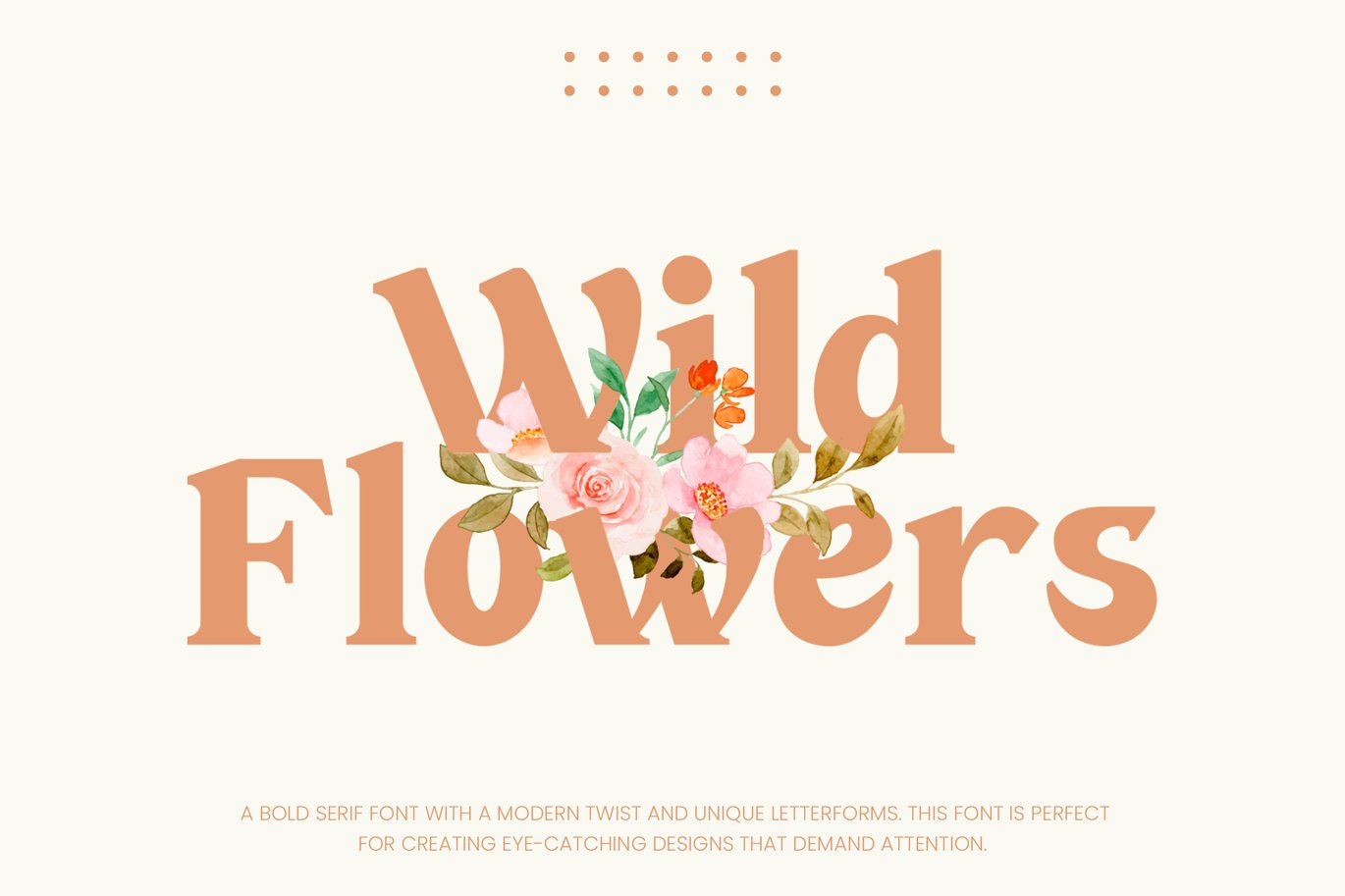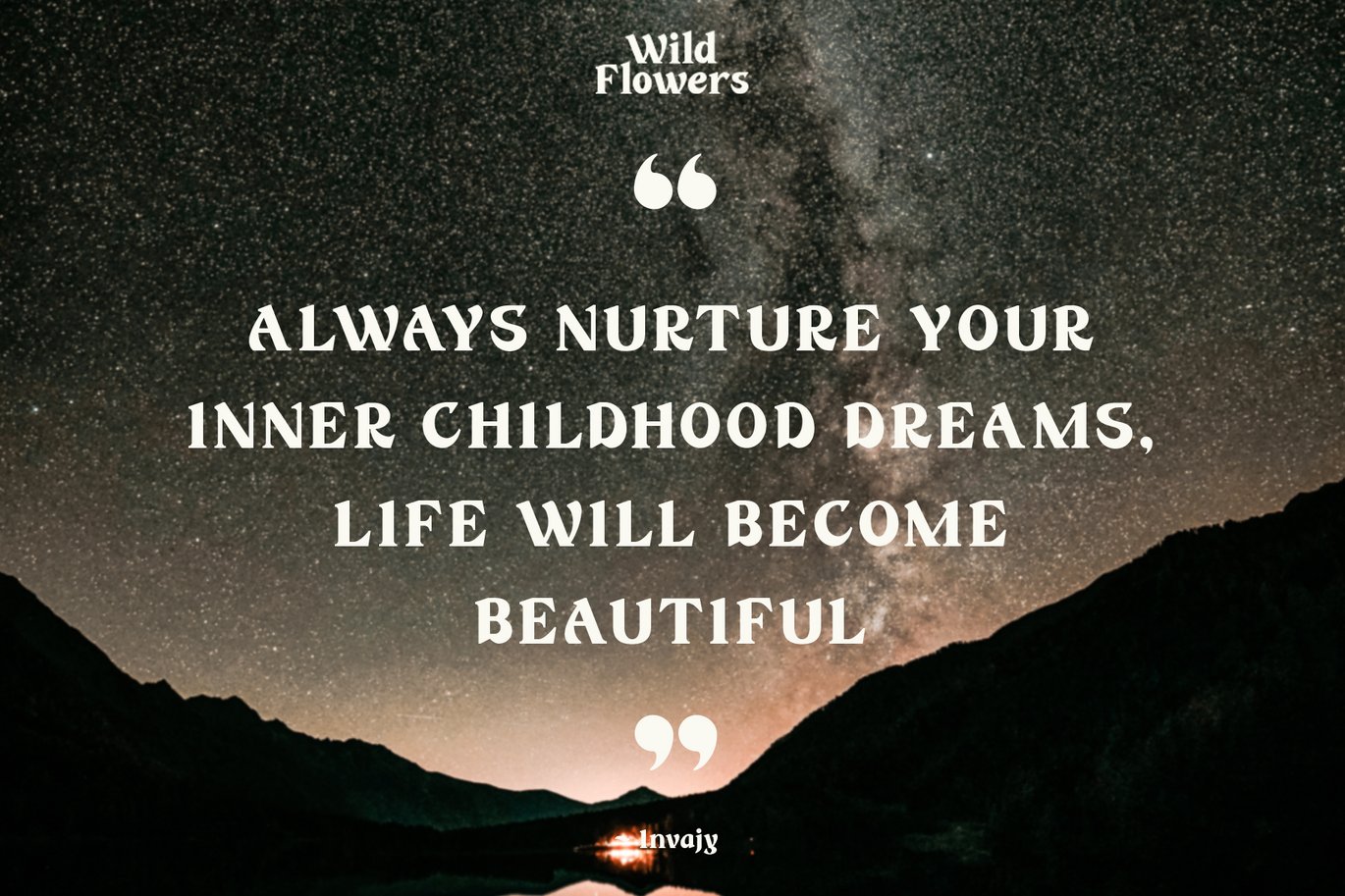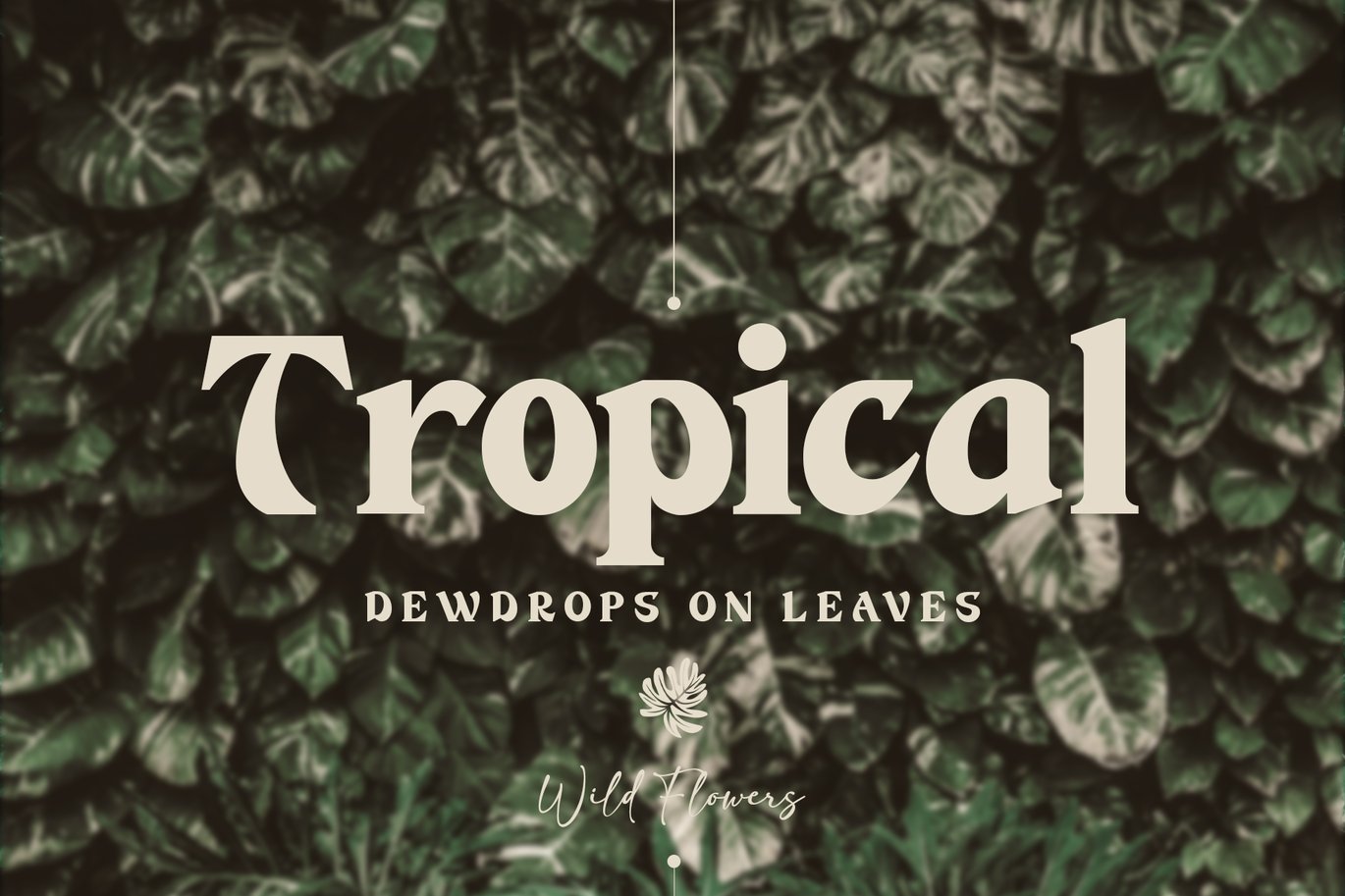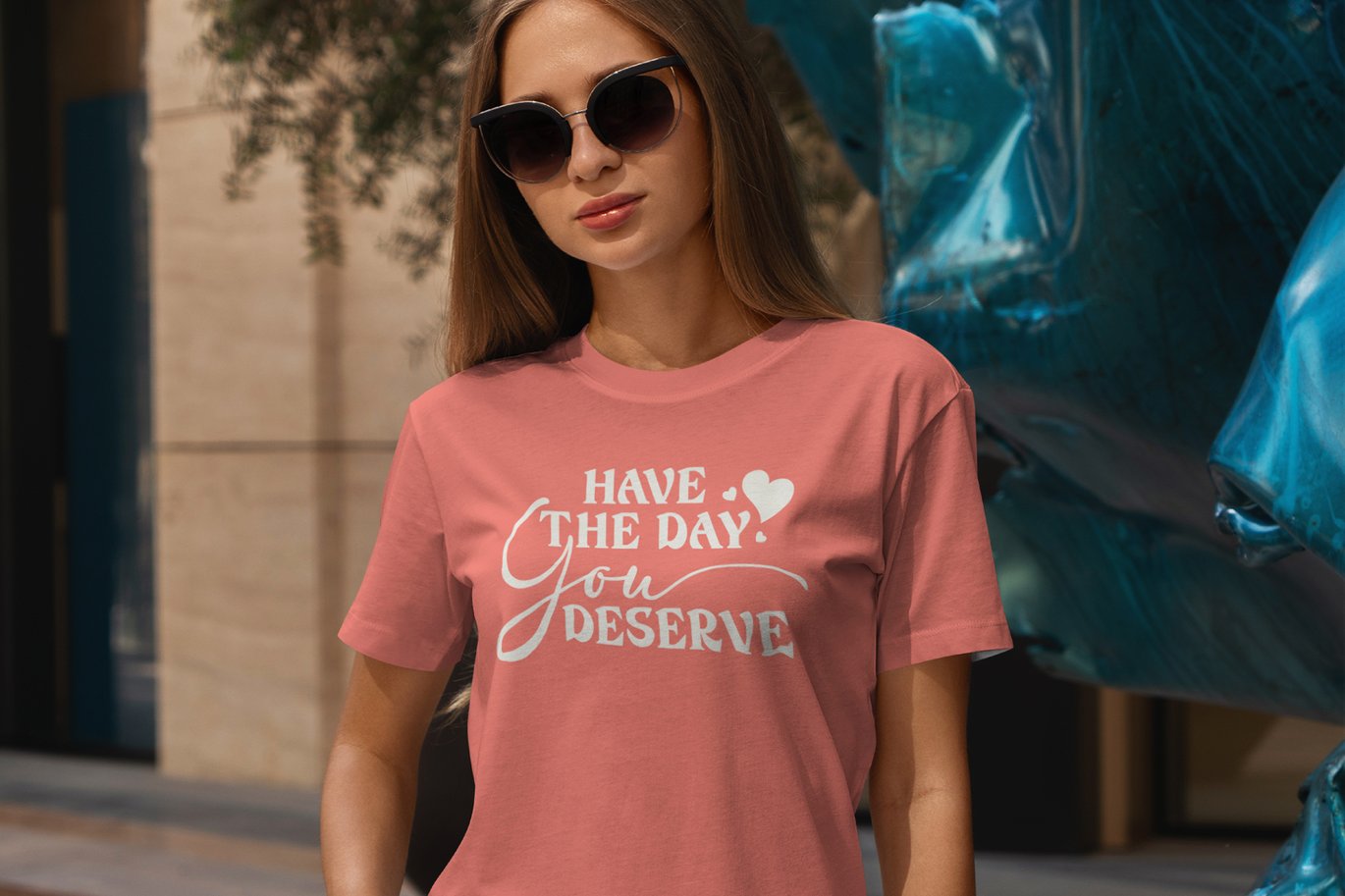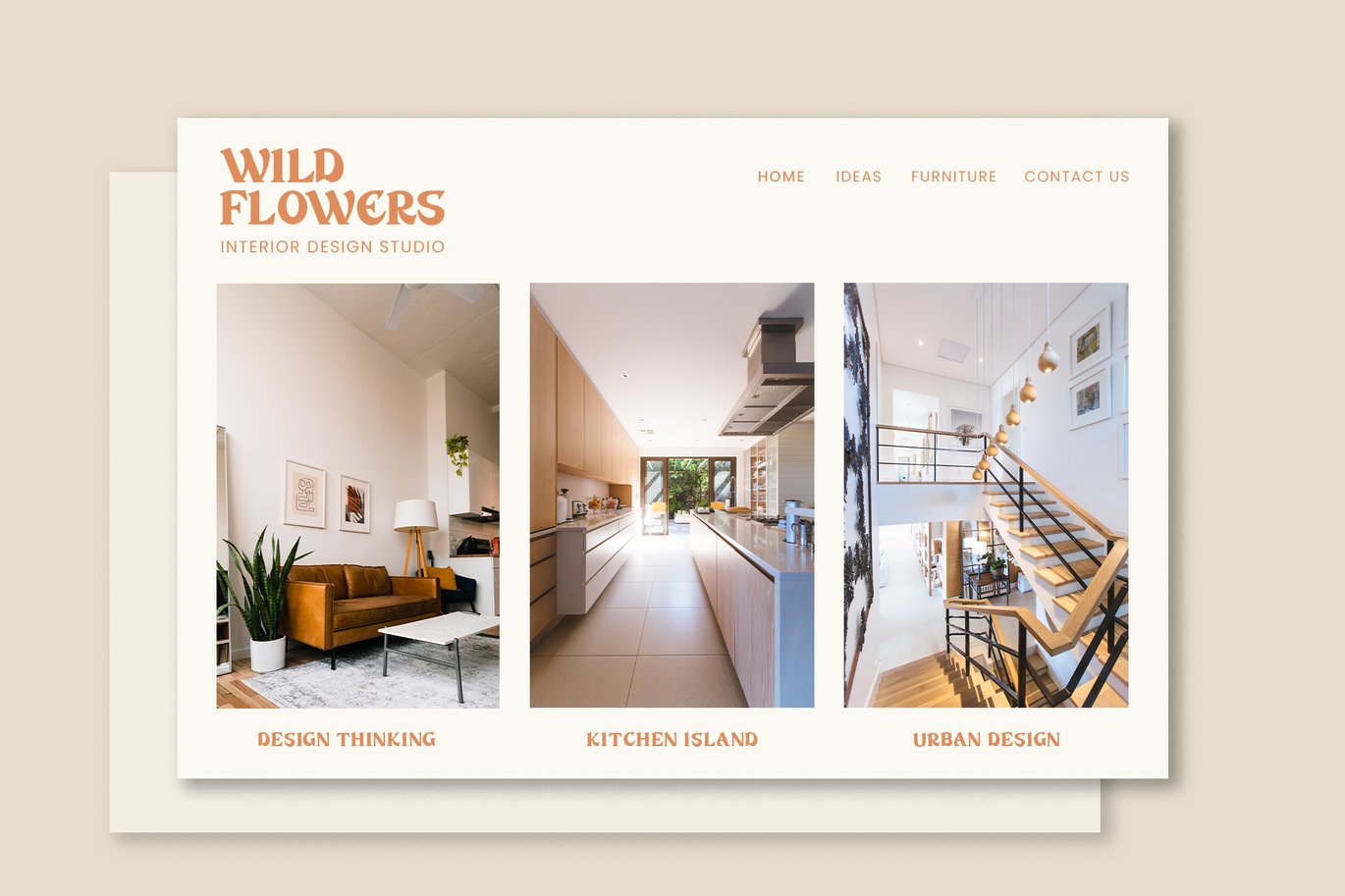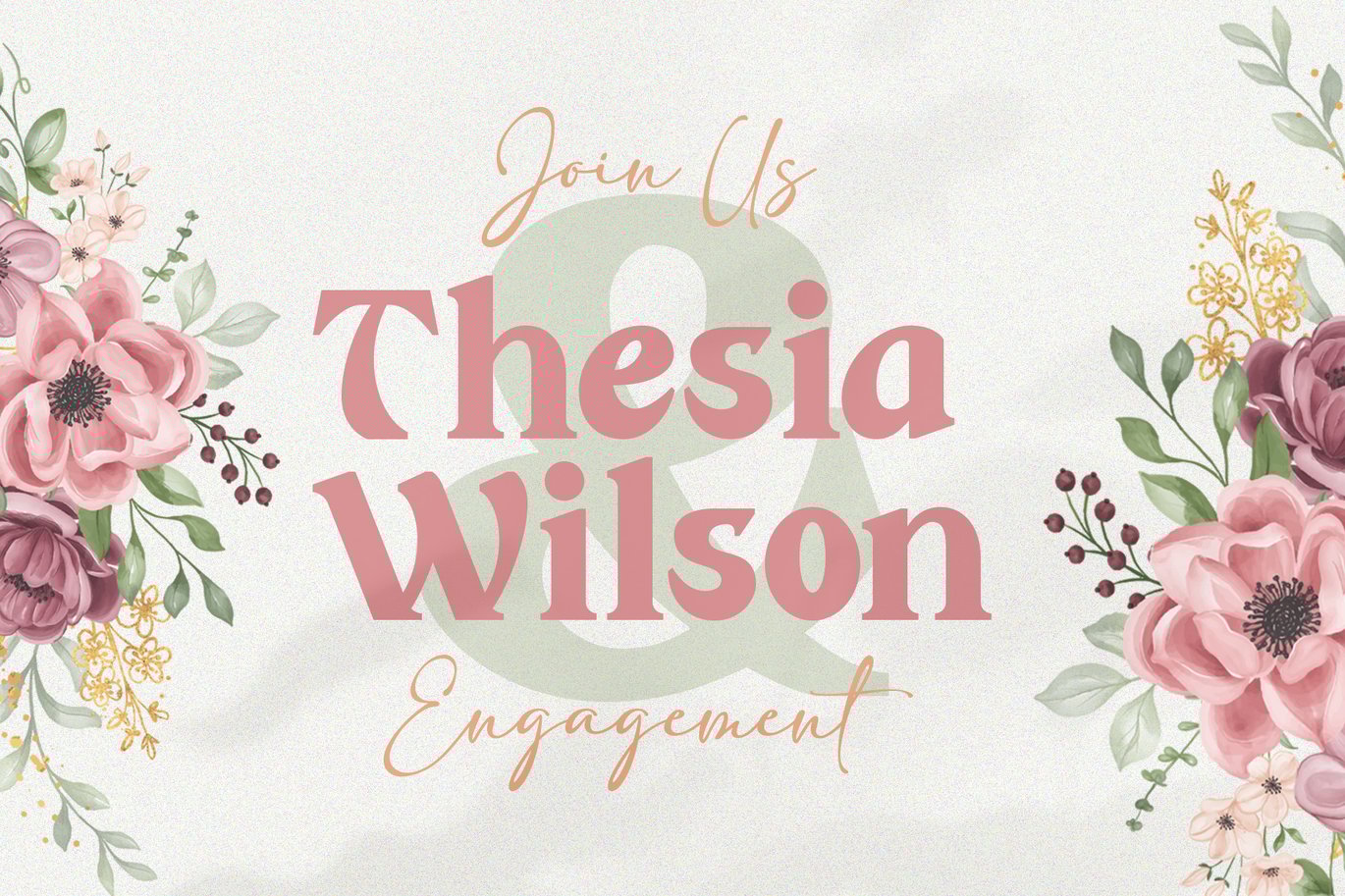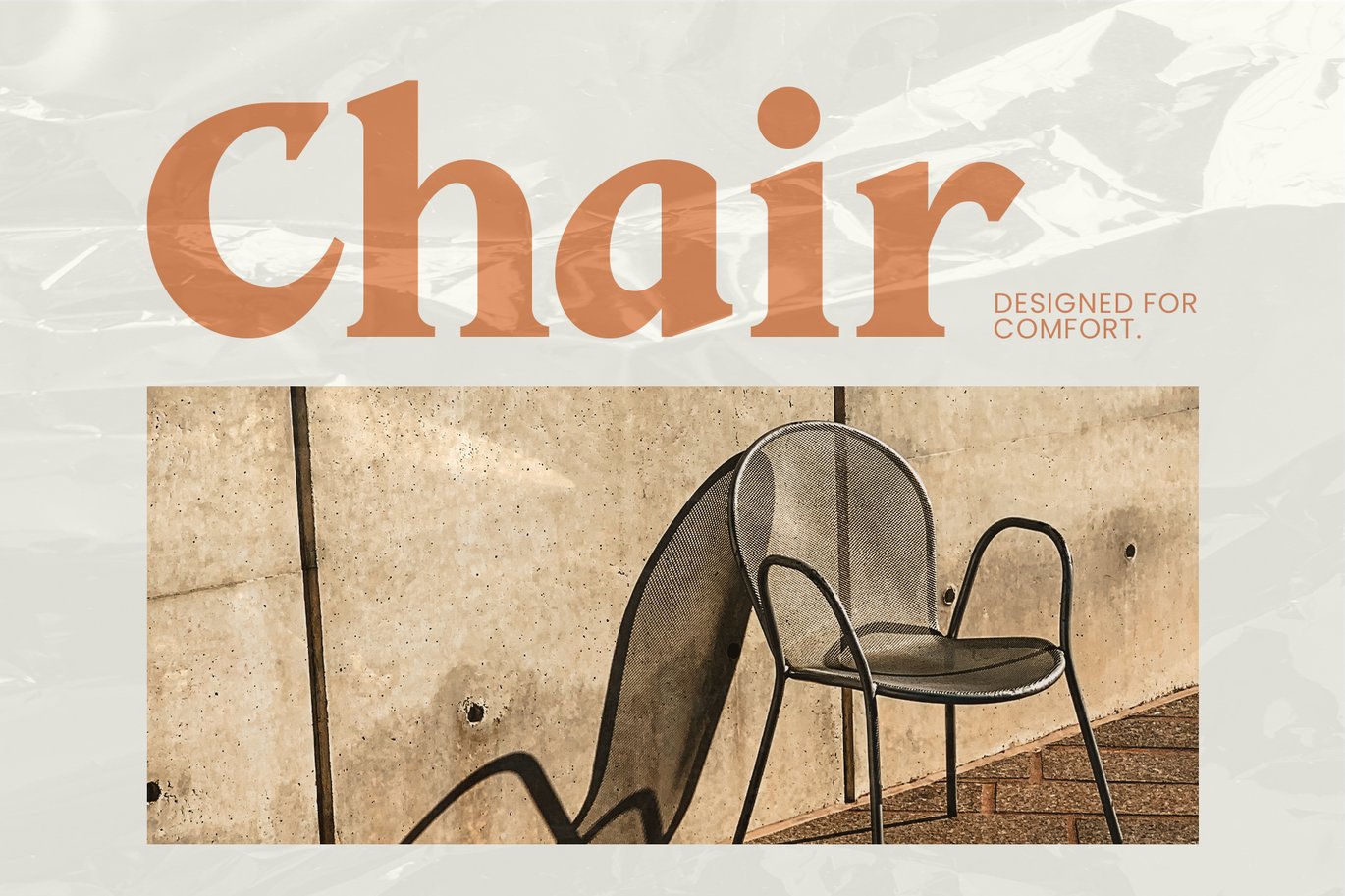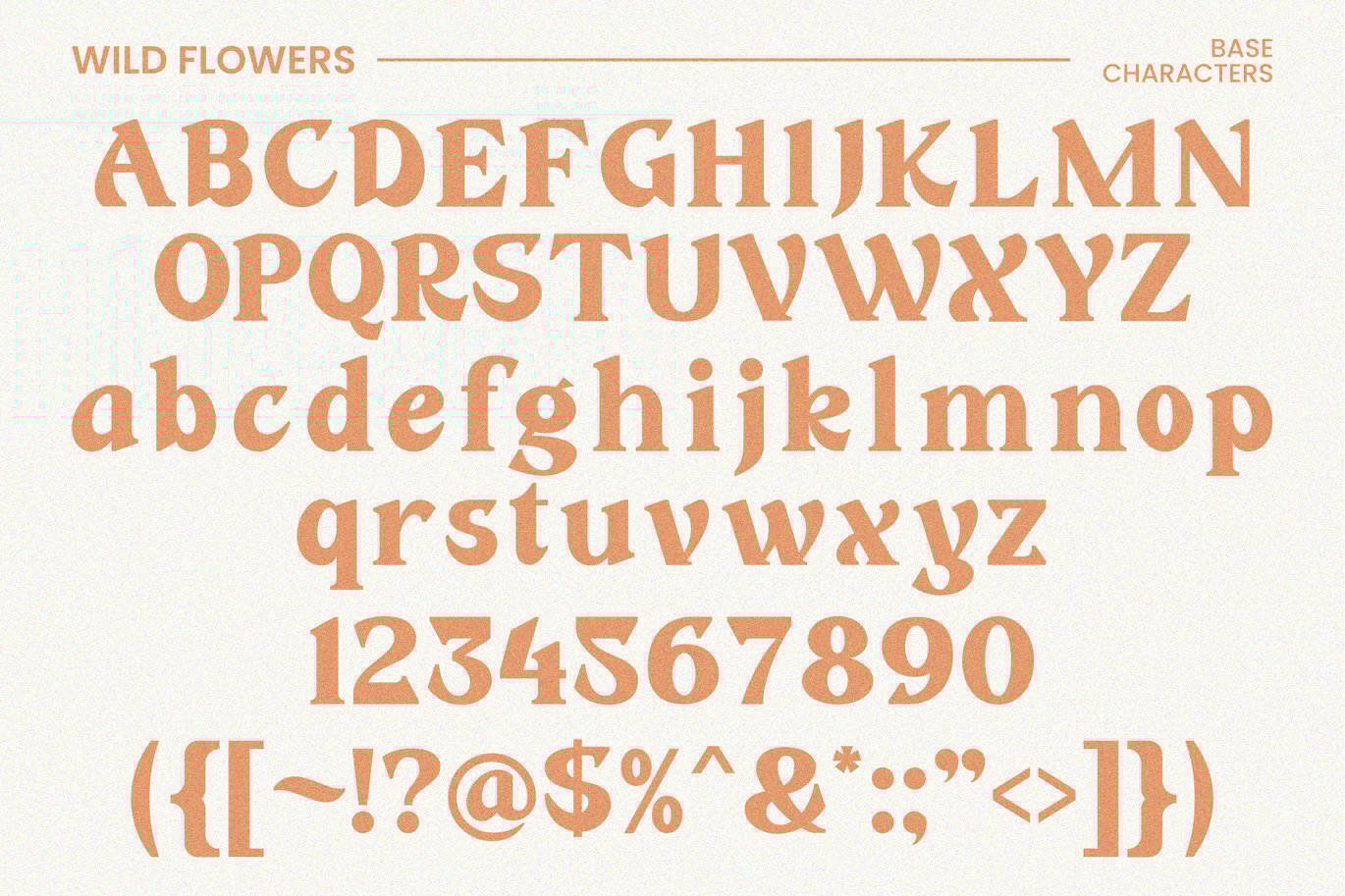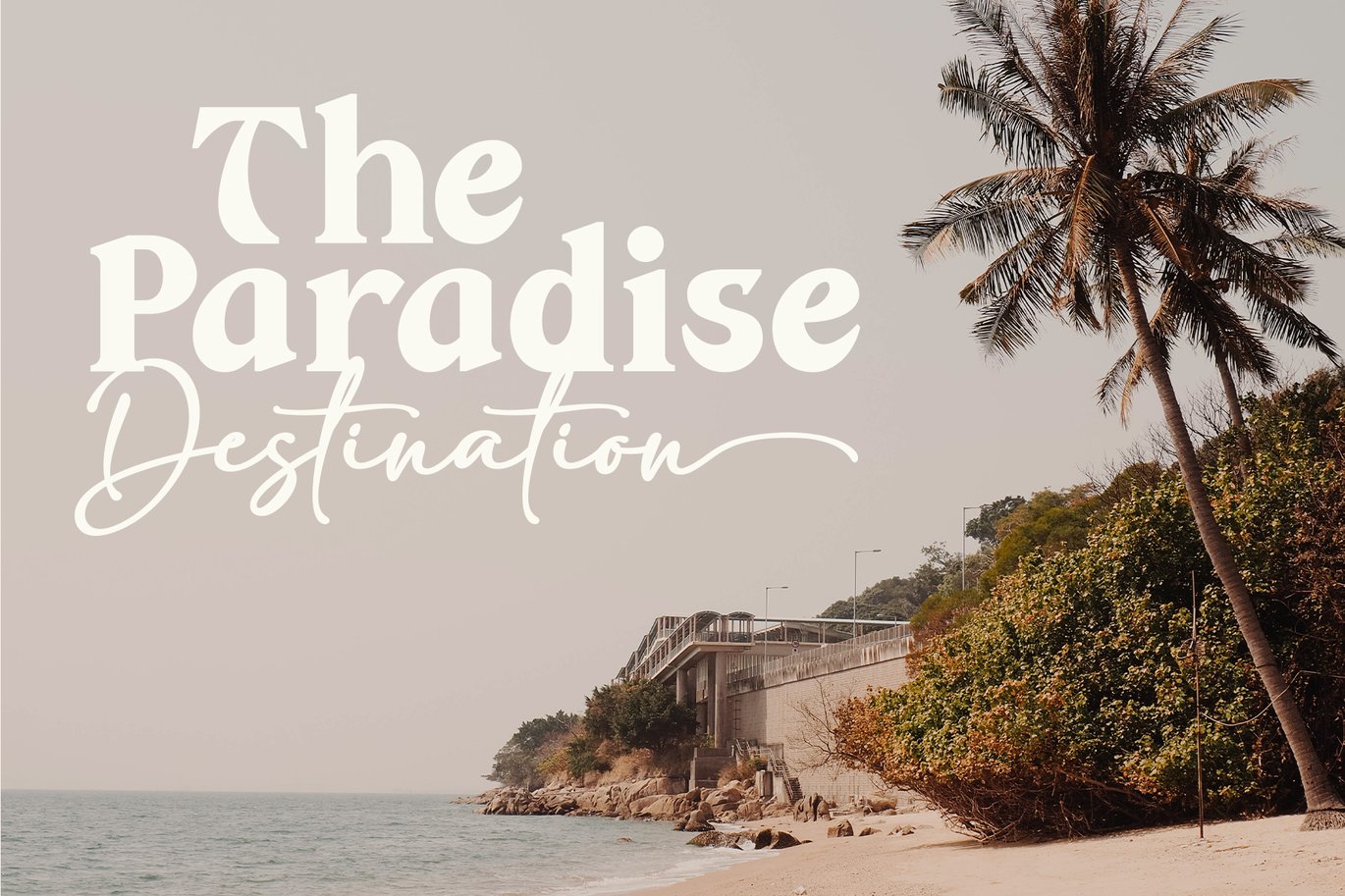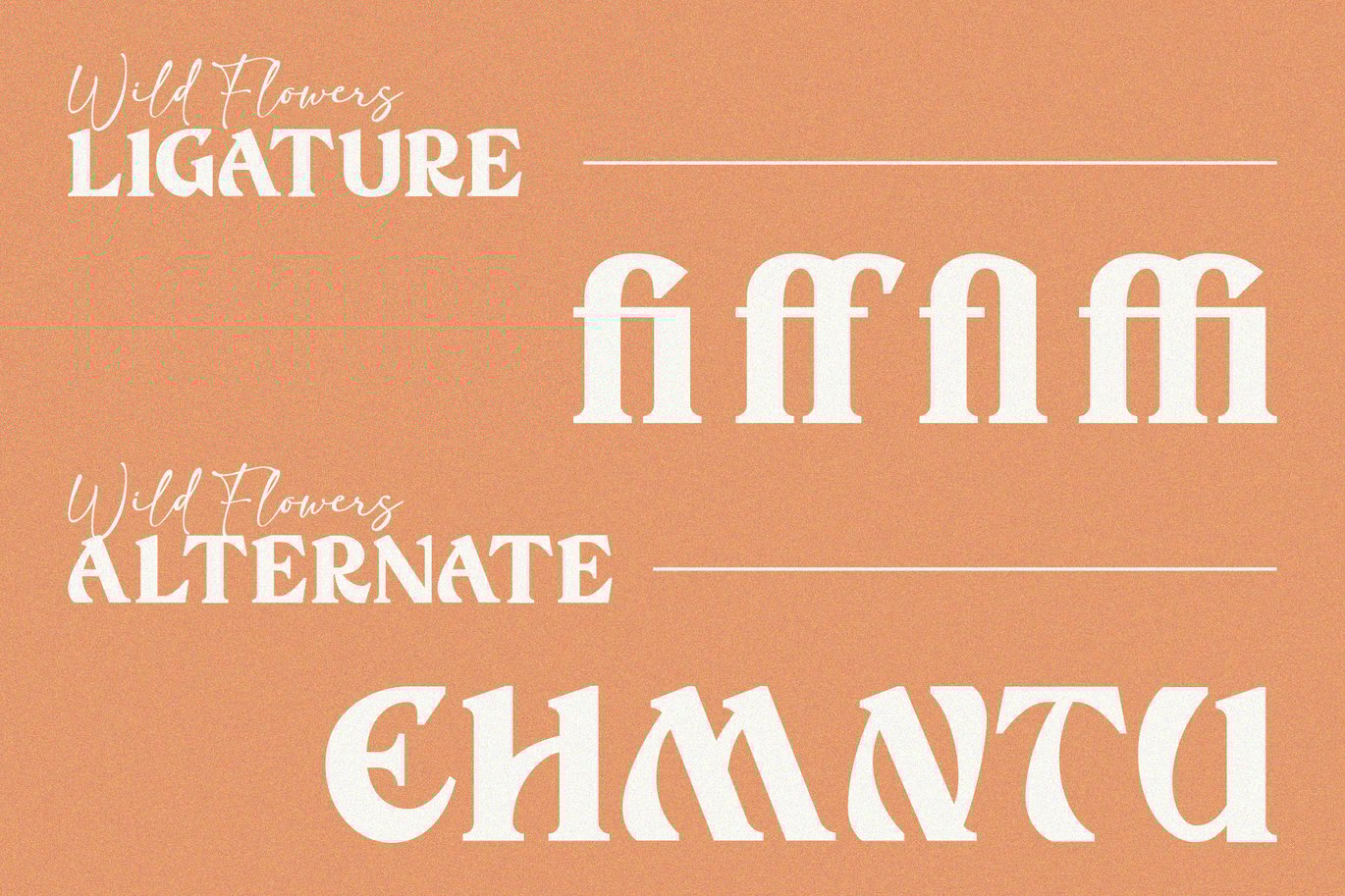
Wild Flowers – Women Luxury Branding, Beauty Font
Wild Flowers is a unique and modern bold serif font that seamlessly blends traditional elements with contemporary style. Its bold and confident lines give it a strong presence, while the decorative serifs add a touch of elegance and sophistication.
This font is perfect for a wide range of design projects, including branding, editorial, packaging, and headlines. Its versatility allows it to work well in both print and digital mediums, making it an ideal choice for both body text and larger display uses.
One of the key benefits of “Wild Flowers” is its legibility. The clear, well-defined letterforms make it easy to read, even at smaller sizes, while its boldness and character make it ideal for designers looking to make an impact with their typography.
In summary, “Wild Flowers” is a modern and unique serif font that will add a touch of sophistication and style to any design. Its blend of traditional and modern styles makes it a versatile font that will work well in a wide range of projects, and its legibility ensures that it will be easy to read no matter the application.
- Special Ligatures & Alternates